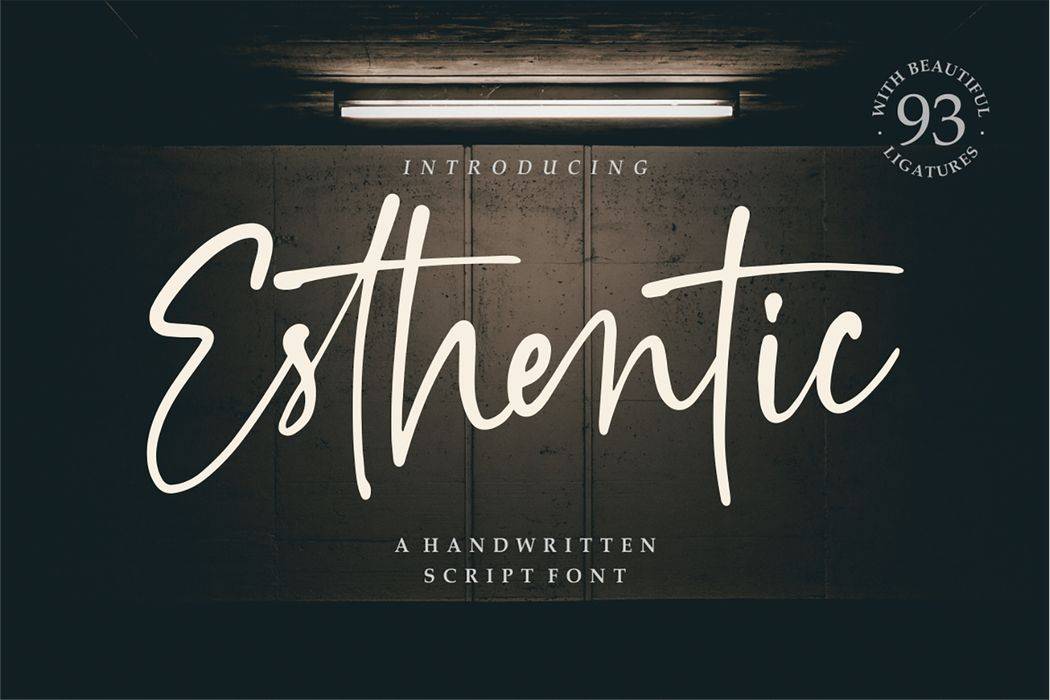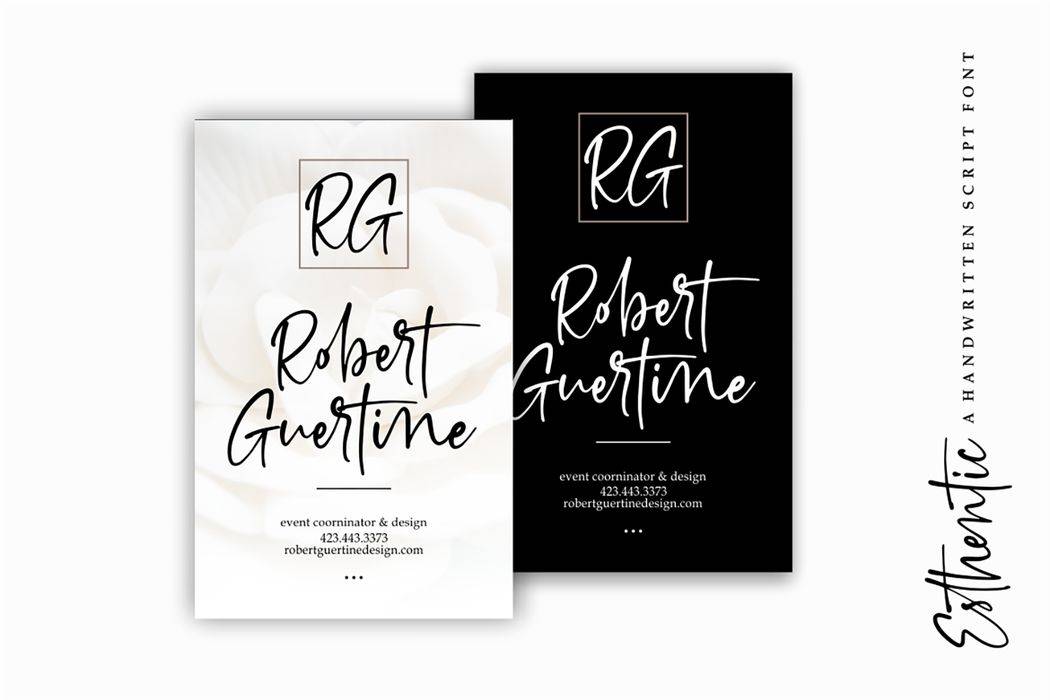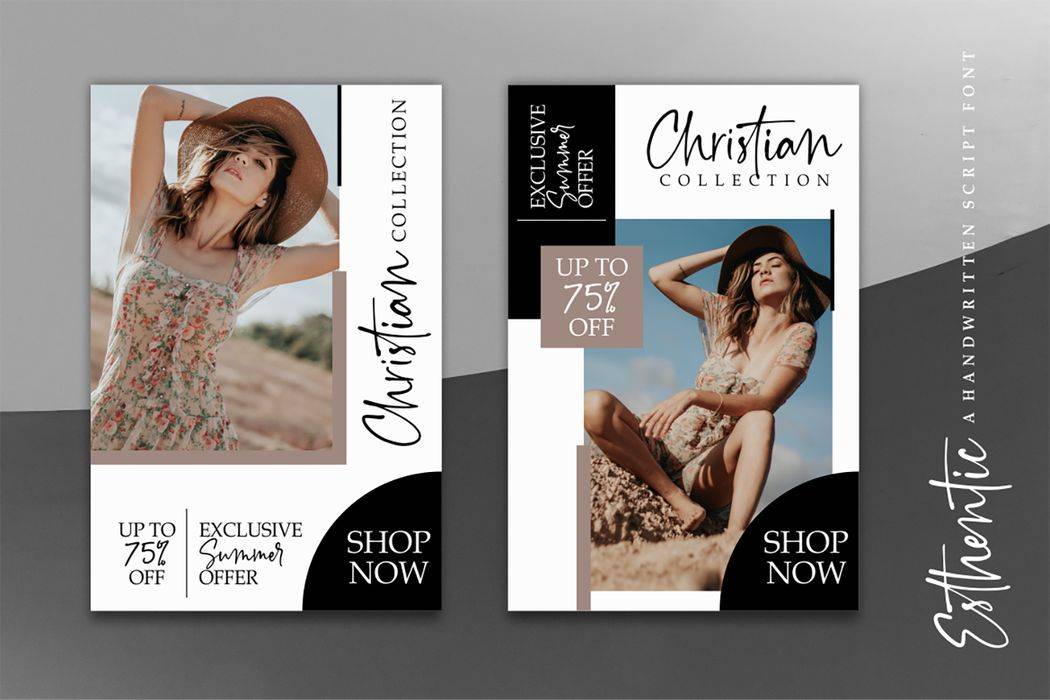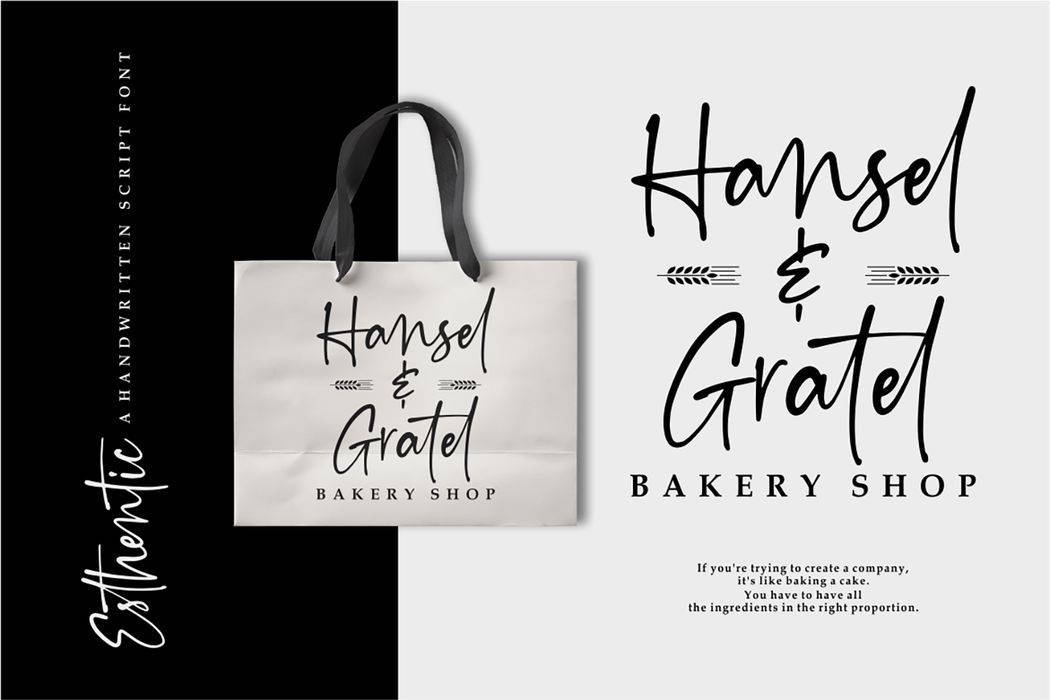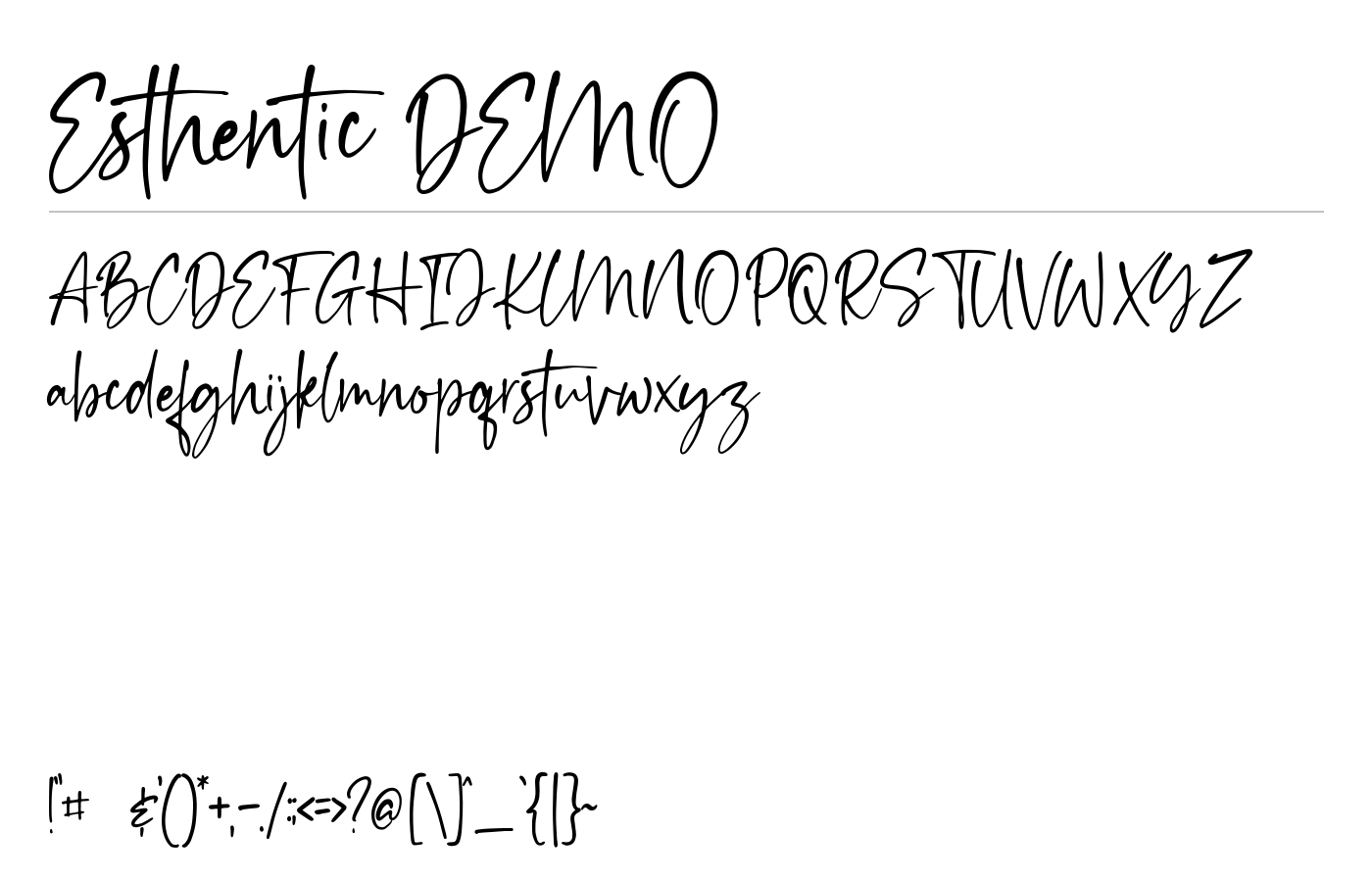
Esthentic is a casual handwritten script font with a natural, flowing style that feels both personal and inviting. Its thin, slightly irregular strokes and tall, narrow letterforms give it a modern, artistic look perfect for creative branding, invitations, and lifestyle projects that seek a friendly yet elegant touch. This font works well in contexts where an authentic, handcrafted feel is desired, making it ideal for logos, social media, and packaging that aim to connect on a more intimate level.
Esthentic Font
About Esthentic Font
| Font family | Esthentic Font |
| Release date | 2020-05-07 |
| Designer | Vilogsign |